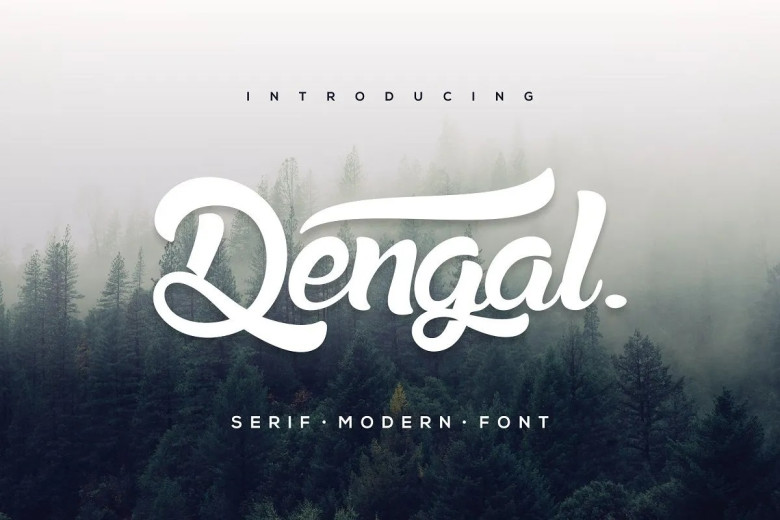
Dengal Font
Dengal is a strong, down-to-earth script typeface. It’s suitable for a complete brand project such as logo, t-shirt printing, esport, and many more. Dengal suits all kinds of roles.
Dengal Bold Script Font